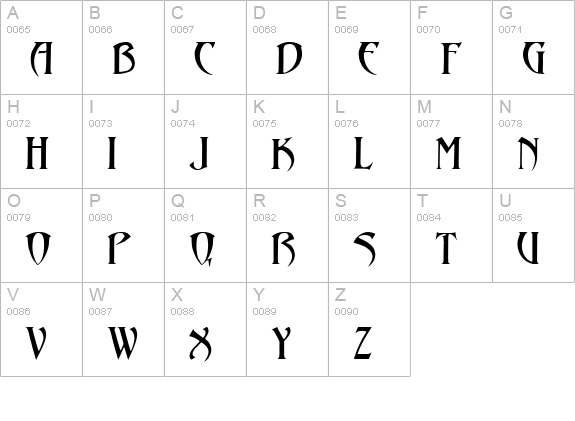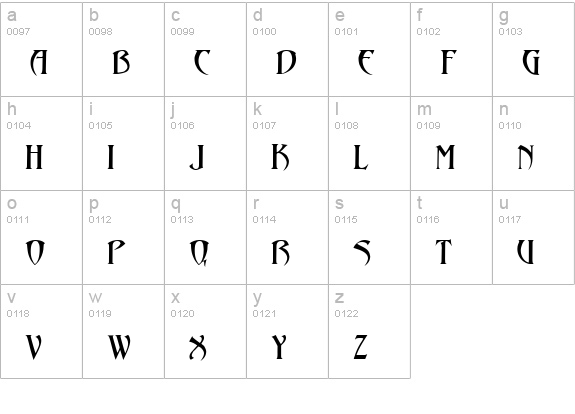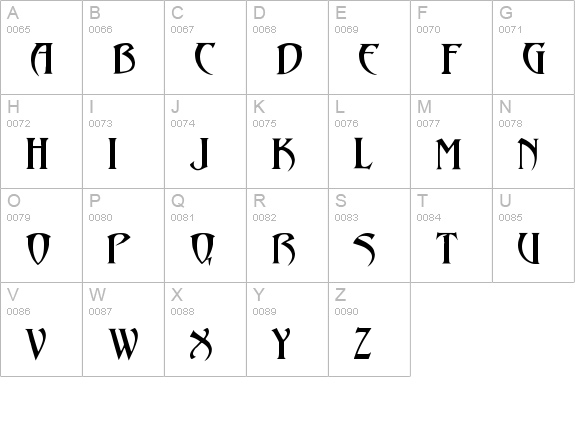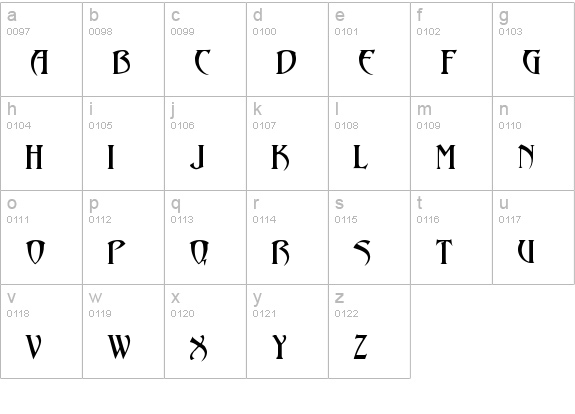
Abaddonâ„¢ Font Details
Abaddon™ font is a modern and stylish typeface that exudes sophistication and versatility. With its clean lines and elegant curves, Abaddon™ is perfect for a wide range of design projects, from branding to editorial design. This font is available in multiple weights and styles, allowing for endless creative possibilities. The best part about Abaddon™ font is that it is completely free to download at FontsMarket.com. Whether you are a seasoned designer or just starting out, this font is a must-have in your collection. Its timeless design and high readability make it a popular choice among designers looking to make a statement with their typography. Download Abaddon™ font today and elevate your design projects with this stunning typeface. Let your creativity shine with this versatile and free font that is sure to make a lasting impression.